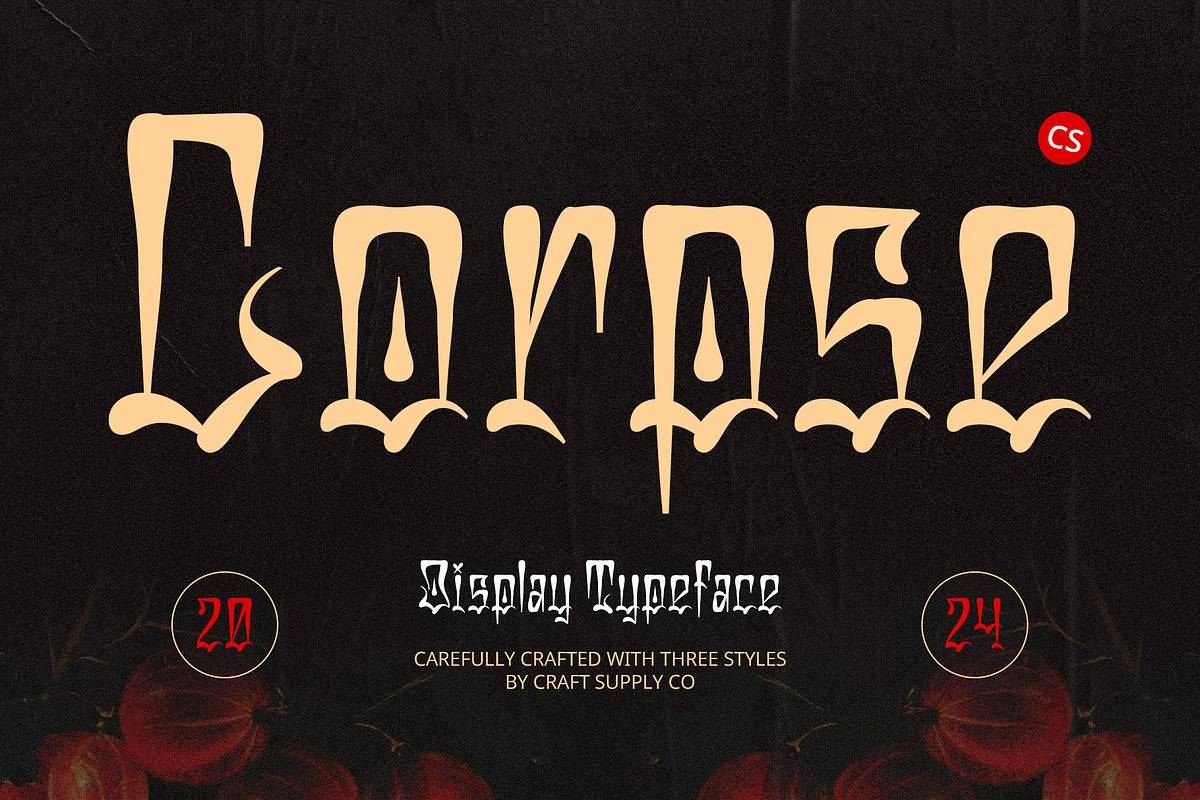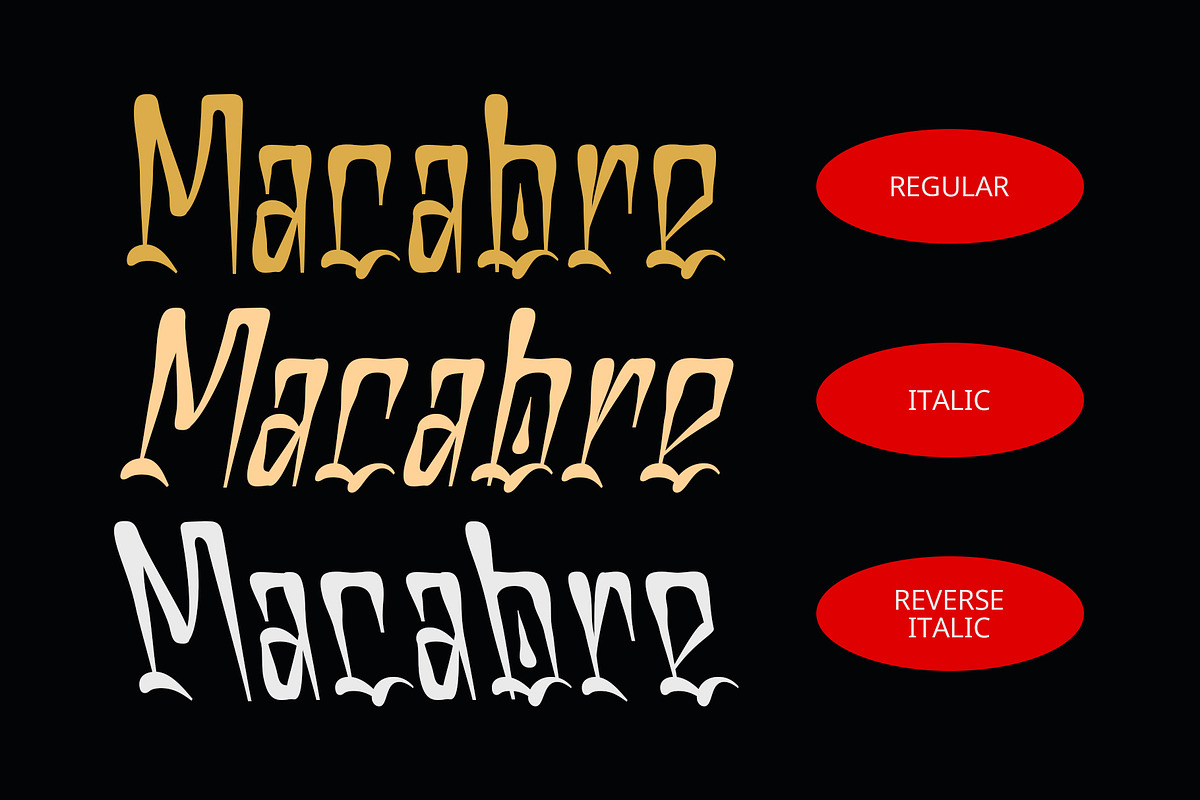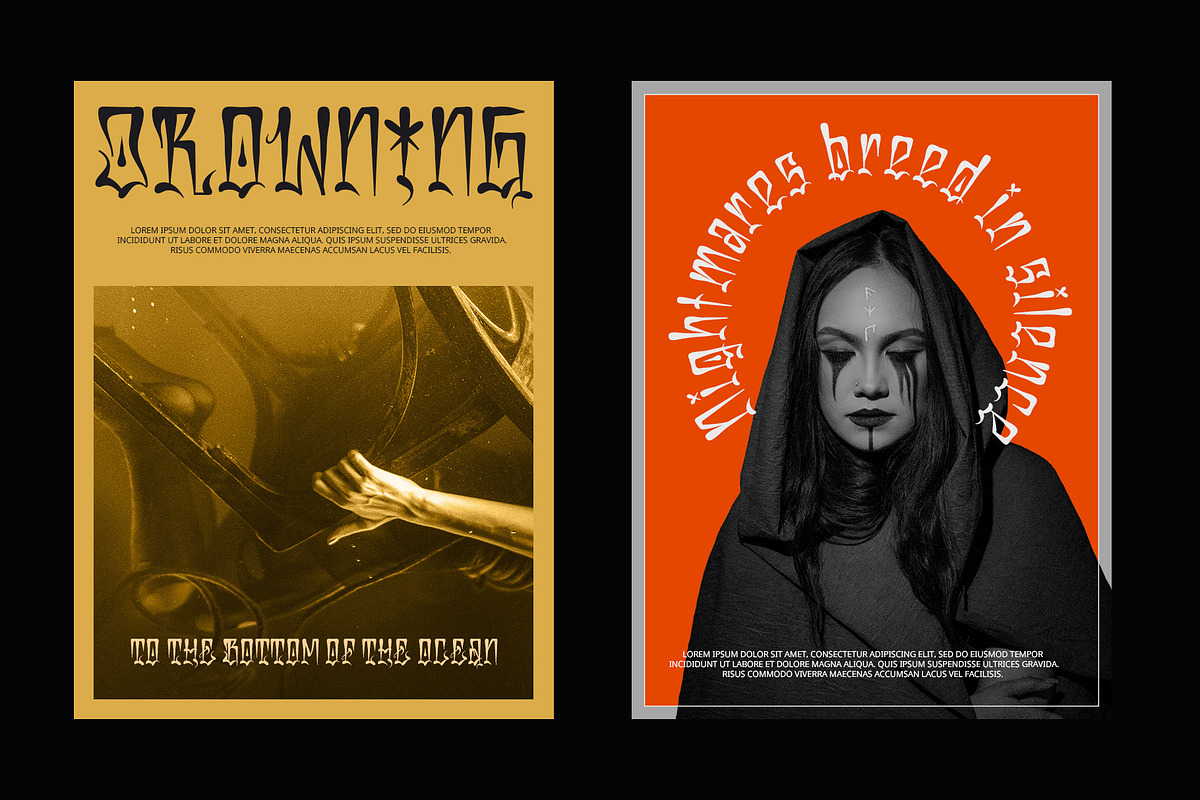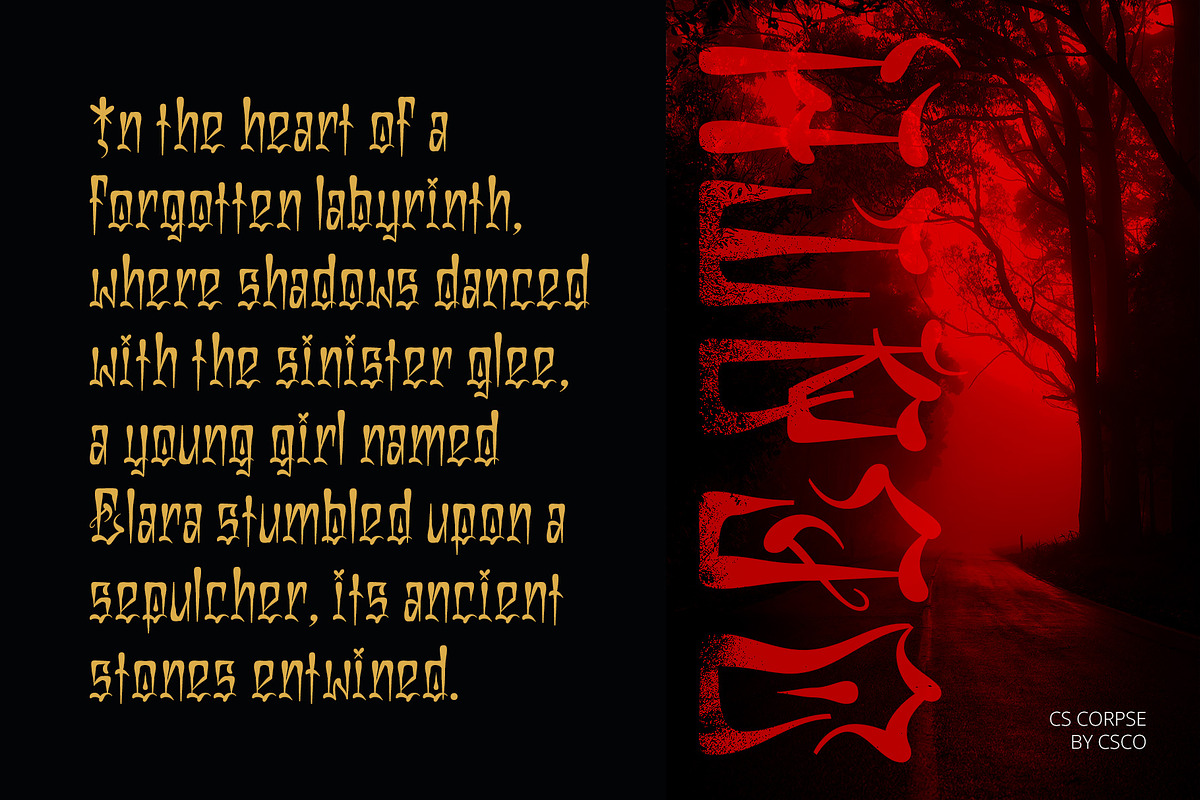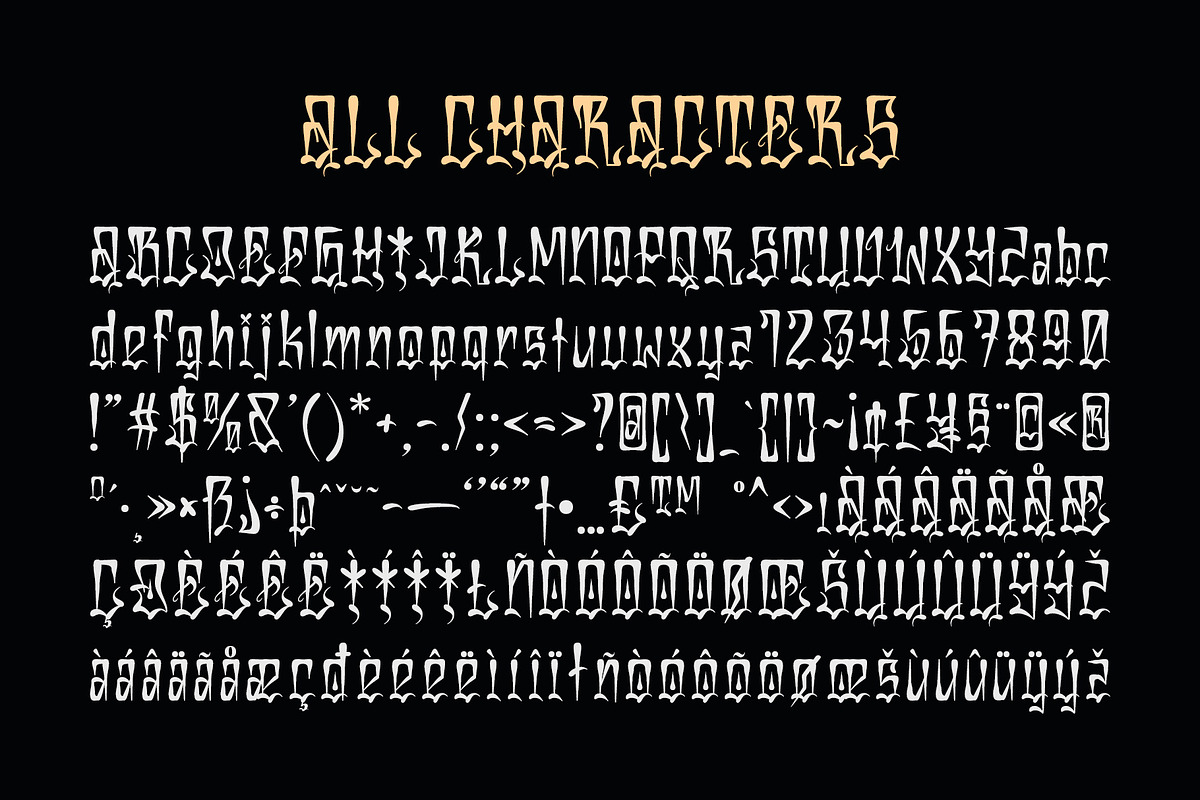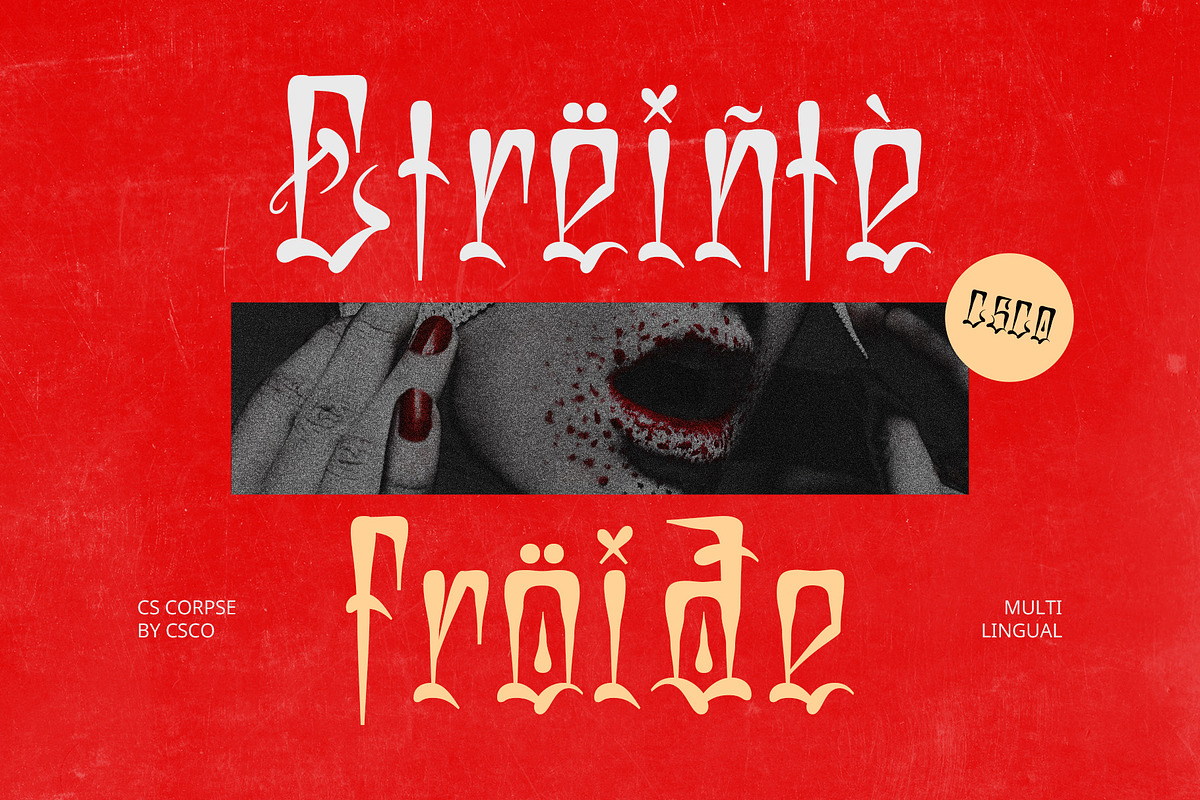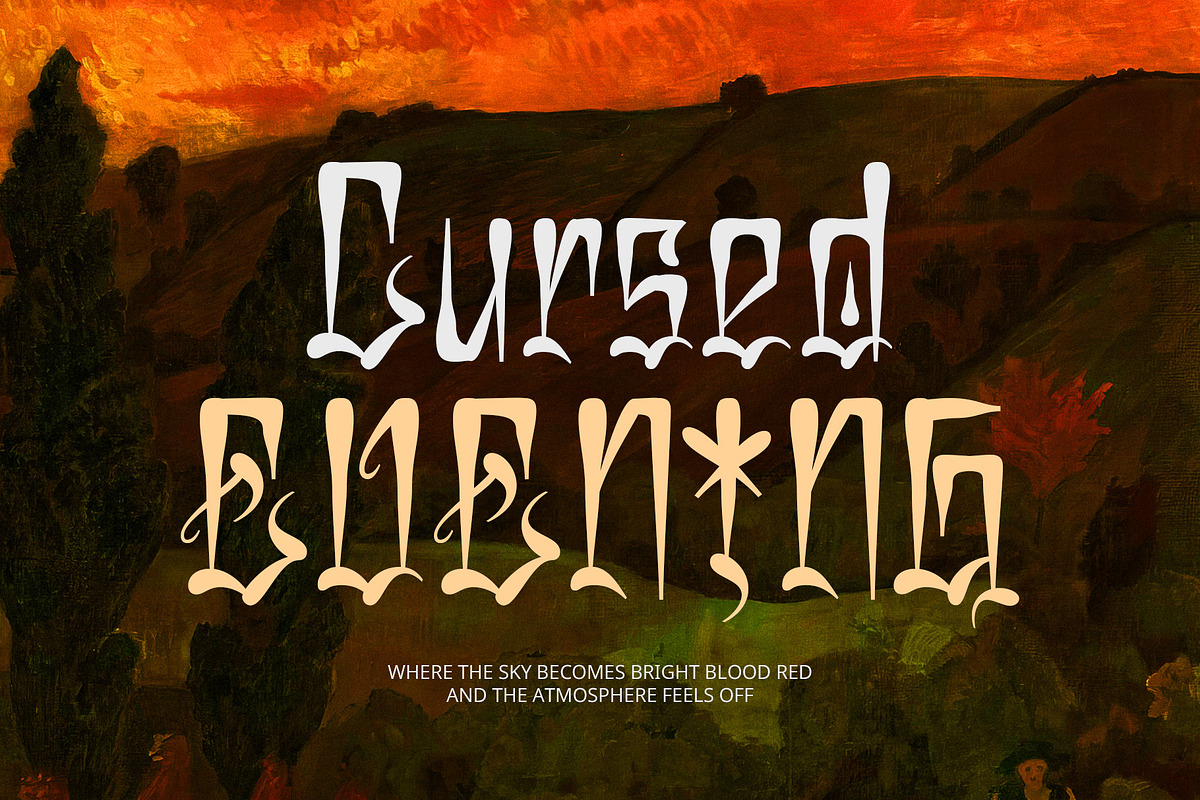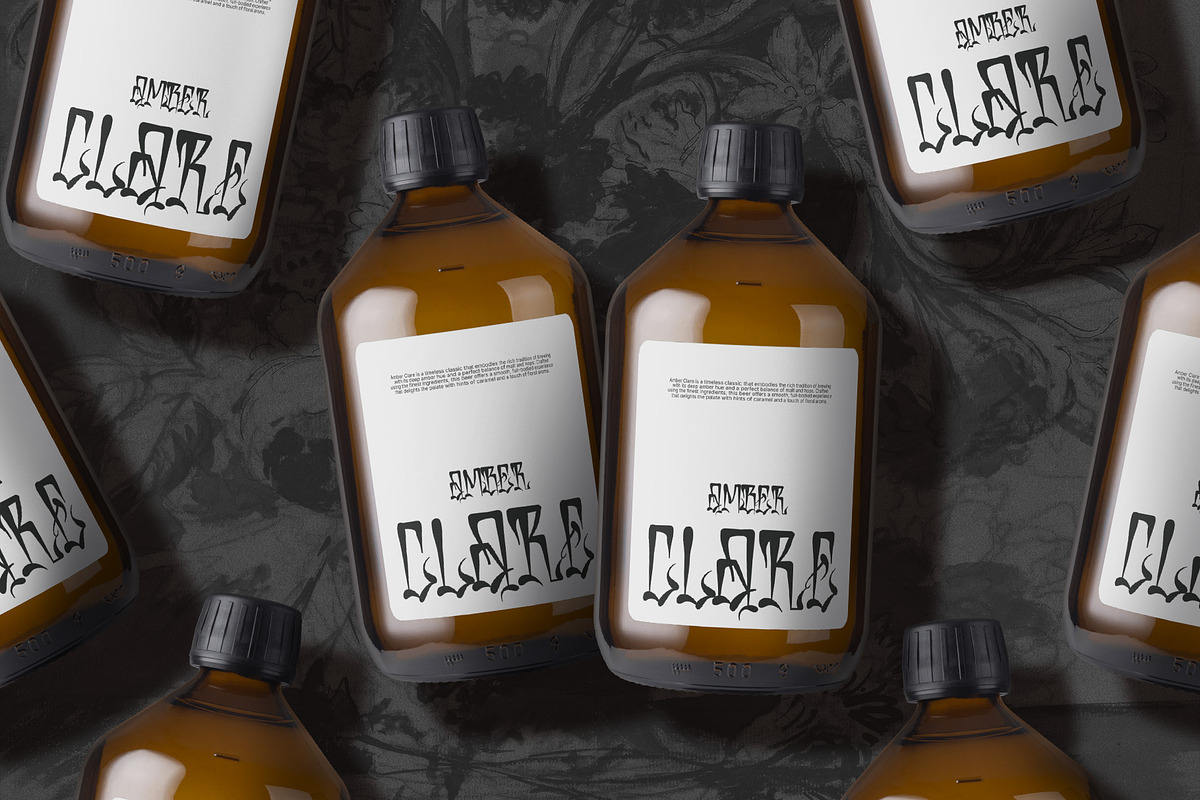
CS Corpse – Chicano Graffiti Font
Urban Artistry CS Corpse is a striking Chicano graffiti display font that masterfully blends bold and expressive elements of street art. Its colorful letterforms are a testament to the vibrant urban culture from which it draws inspiration. With thick lines and dynamic curves, this font embodies the spirit of creativity and self-expression, making it a powerful choice for designs that celebrate individuality and artistic freedom.
Vivid and Dynamic Design Each letter of CS Corpse is crafted with artistic details that reflect the essence of graffiti culture. The free-spirited and unconventional vibe of this font captures the raw energy of the streets, making it ideal for a variety of applications, including music posters, event flyers, and urban branding. Its vivid design is perfect for projects aiming to make a bold statement, ensuring that your message stands out in a crowded visual landscape.
Cultural Significance This font not only showcases aesthetic appeal but also pays homage to a rich cultural heritage. CS Corpse reflects the identity and values of the Chicano community, making it suitable for projects that aim to connect with themes of cultural pride, social justice, and artistic expression. By incorporating this font into your designs, you can celebrate and elevate the stories that resonate within urban art movements.